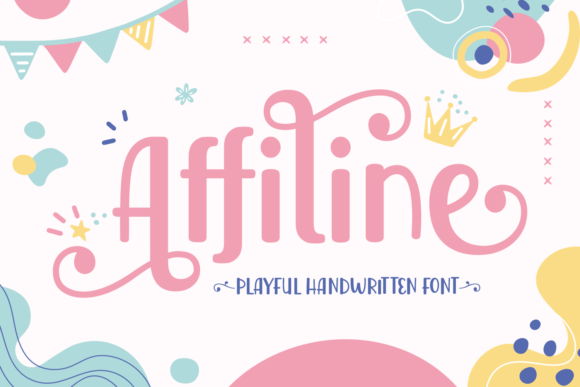
Behold Affiline, an enchanting script font crafted by the creative wizards at Creative Fabrica Fonts. Its playful and effortlessly legible nature dances across your screen, capturing the innocence and exuberance of youth. Affiline is the perfect companion for projects brimming with childlike wonder – storybooks that transport you to enchanted realms, whimsical birthday invitations that promise laughter and merriment, and branding that exudes a vibrant, youthful energy.
With Affiline, your creative projects take on a life of their own. Its charming strokes evoke a sense of authenticity and genuineness, adding a personal touch to every word. Whether you're designing marketing materials, creating social media graphics, or simply expressing yourself through art, Affiline is your ticket to captivating designs that resonate with your audience.